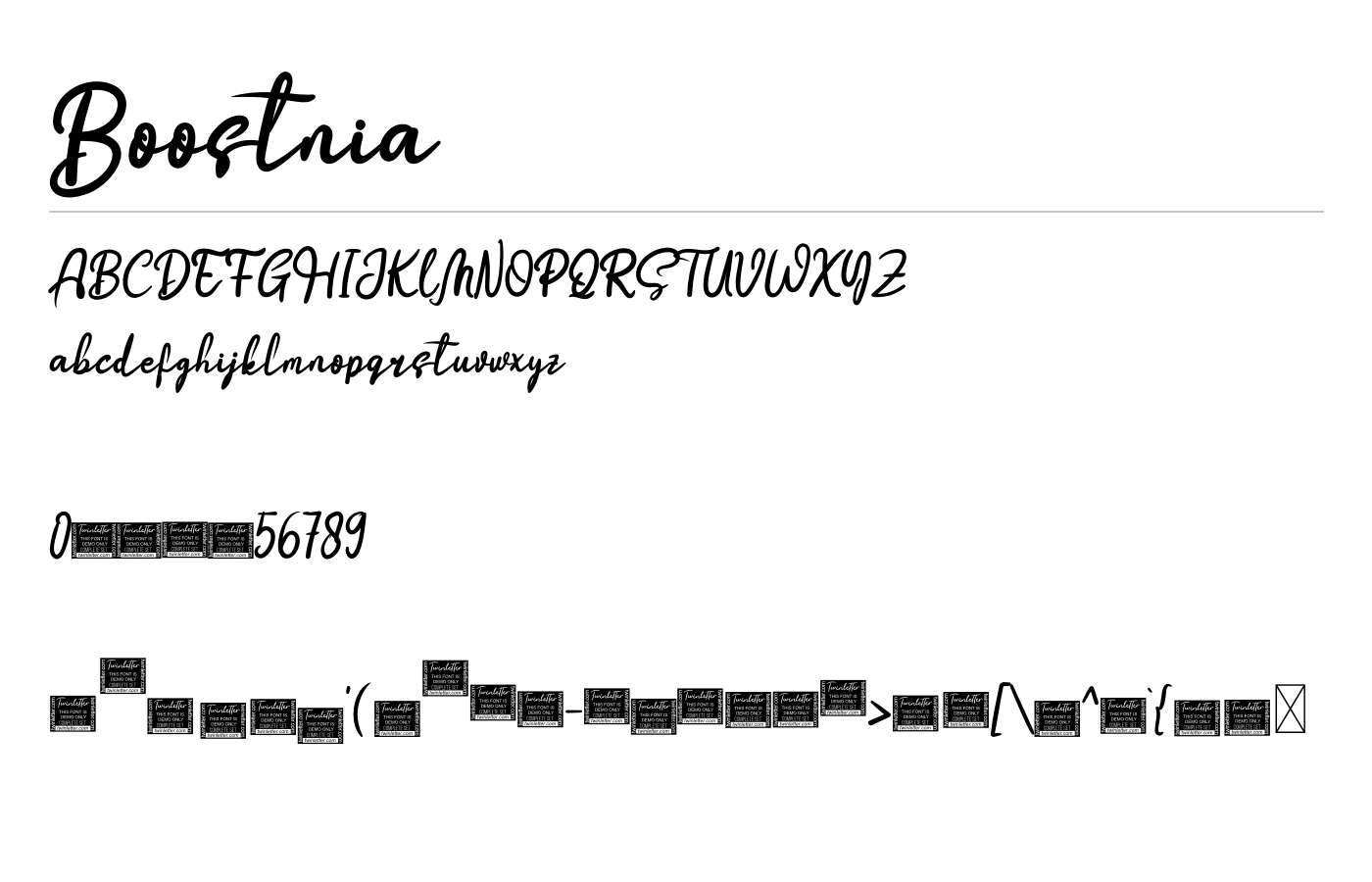
Boostnia is a lively and elegant script font that features smooth, connected letters with a natural, hand-drawn feel. Its medium weight and slightly condensed forms make it perfect for creative branding, invitations, and eye-catching headlines where a charming, personal touch is desired. This font captures a friendly yet stylish vibe, ideal for conveying warmth and sophistication in design projects.
Boostnia Font
About Boostnia Font